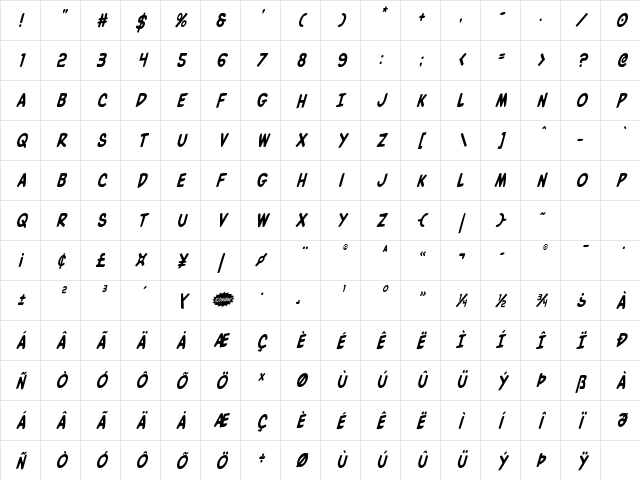
Villain Team-Up Condensed Ital Regular Free Font
Villain Team-Up Condensed Ital Regular
Design Context for Villain Team-Up Condensed Ital
Villain Team-Up Condensed Ital is a composed and adaptable typeface that performs quietly and consistently across a wide range of design contexts. Its narrow stance lets it pack a punch even in space-constrained designs.